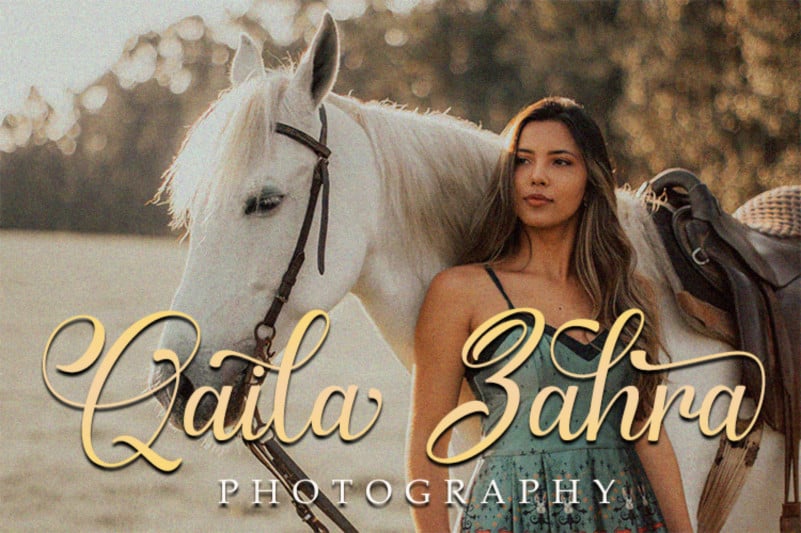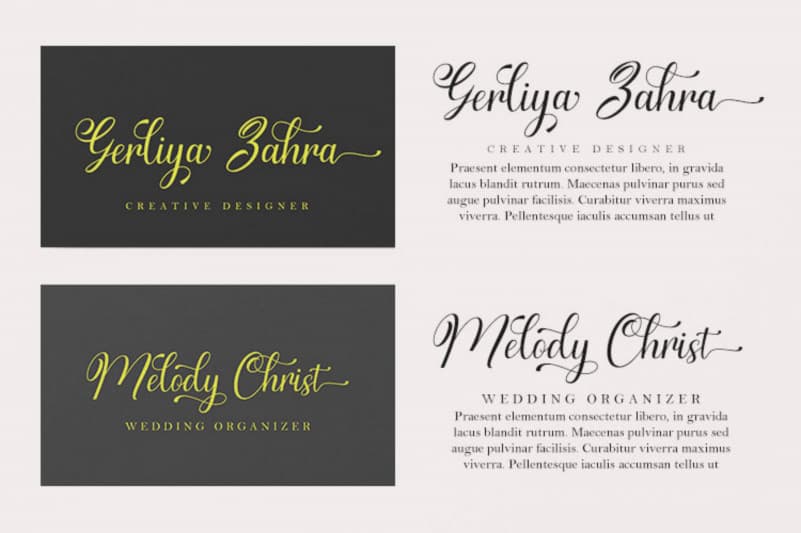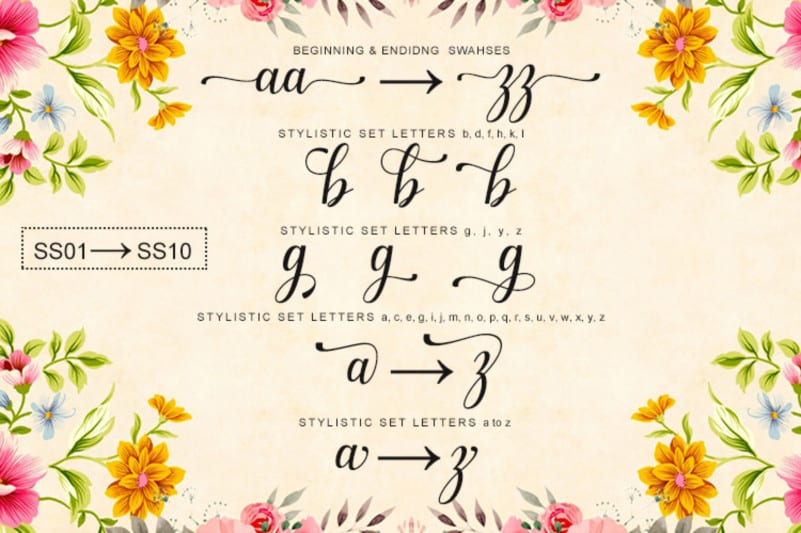
Gerliya Calligraphy Font is a beautiful script font with a contemporary atmosphere and impeccable form, inspired by a timeless classic calligraphy. Not too thin and not too thick, balanced, and varied, this font was designed to enhance the beauty of your projects.